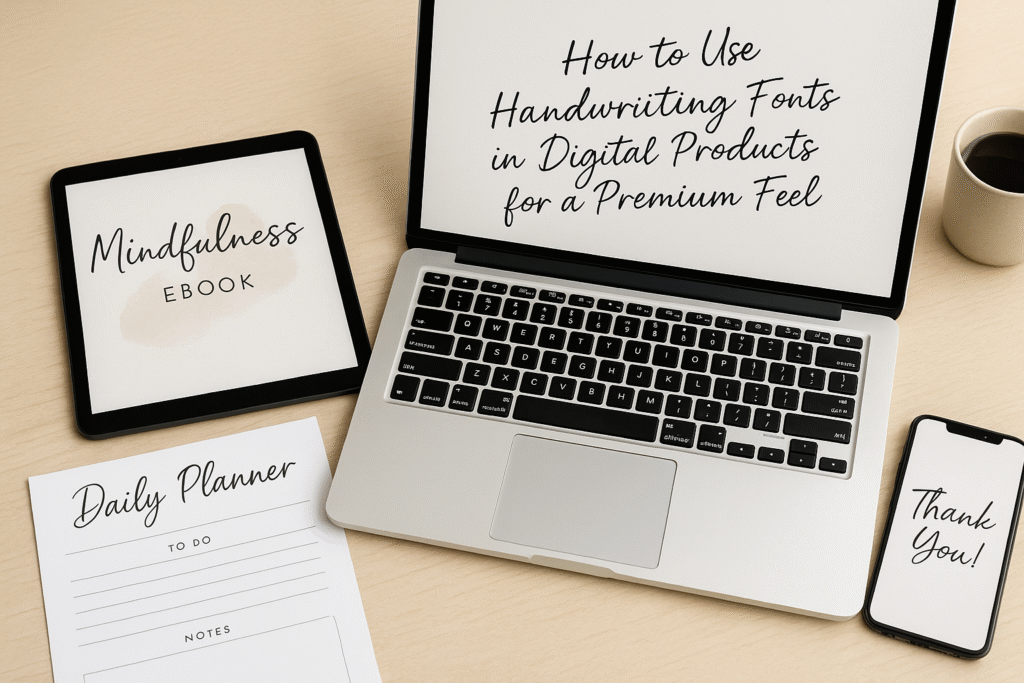
We usually think of handwriting fonts as cute, personal, or artsy. But what if I told you they could also scream luxury?
In the world of digital products—eBooks, planners, mobile apps, courses, digital downloads—design makes or breaks your customer’s first impression. The right font choice can make your product feel thoughtful, elevated, and yes, totally worth the price tag.
Today, we’re digging into the stylish side of handwriting fonts—how to use them to upgrade your digital goods and make customers feel like they’re buying something truly special.
✨ What Makes a Digital Product Feel “Premium”?
Let’s face it. The market is crowded.
From Canva templates to journaling PDFs to coaching programs—there are literally thousands of digital products out there. So what makes one stand out?
Three things:
-
Design polish
-
Clear branding
-
Emotional connection
Guess what helps with all three? You got it—handwriting fonts.
They add a human, custom-crafted feel to digital goods that otherwise risk looking generic. And when done right, they turn a download into an experience.
🖋️ Why Handwriting Fonts Work So Well
Let’s break it down:
-
They feel handcrafted – Which makes your audience feel like you created it just for them.
-
They break the digital monotony – Most digital products use safe, boring fonts. Handwriting fonts instantly stand out.
-
They add hierarchy & warmth – Great for section titles, key quotes, or CTA buttons.
-
They align with lifestyle branding – Especially in niches like self-care, productivity, wellness, art, parenting, or education.
Basically, they’re a shortcut to making your product look more valuable.
🛠️ Where to Use Handwriting Fonts in Your Digital Product
Now, let’s get practical. Here are key areas where a handwriting font can really shine:
🗂️ 1. Covers & Title Pages
The first page of your eBook, guide, or template is prime real estate. A tasteful handwriting font as the main headline or subtitle instantly elevates the feel.
Example:
“Mindful Morning Routine Planner” in a soft, flowing script font paired with a clean sans-serif subtitle.
📝 2. Section Headers
Break up long chunks of text by using handwriting fonts for headers. This guides the reader’s eye and makes the layout feel more dynamic.
Example:
Each chapter in a digital workbook starts with “Chapter One” in script, followed by a clean serif heading.
🧠 3. Quotes, Tips, and Prompts
Add personality to sidebars or pull quotes using a handwriting font. This makes your content feel more like a conversation than a lecture.
Example:
“Take 5 minutes to reflect on this moment.” in a handwritten note-style font.
📅 4. Worksheets and Interactive Templates
Want your printable planner or tracker to look approachable? Use handwriting fonts for section labels, notes, and callouts.
Example:
Checklist items with checkboxes and a soft handwritten style: “Drink water,” “Do 10 min yoga,” etc.
📱 5. App or Web-Based Products
Yes—even apps can rock handwriting fonts, if used sparingly. Try it on splash screens, onboarding messages, or confirmation pop-ups.
Example:
“Welcome back, Sarah 💛” in a modern cursive font feels personal and friendly.
🧃 Font Pairing Tips for Digital Products
Balance is everything. Handwriting fonts should complement—not overpower—your content. Here’s how:
-
Pair with a clean base font – Choose a sans-serif or classic serif as your primary body font.
-
Use handwriting fonts for emphasis – Keep them in titles, not body paragraphs.
-
Stick to 2–3 fonts total – Your design will feel cleaner and more cohesive.
-
Test on screen and print – Make sure your script font reads well on different devices.
Some winning combos:
-
Sophia Script + Open Sans
-
Hello Paris + Lora
-
Lemonade Script + Raleway
-
Adelina Script + Playfair Display
🧠 Psychology: Why It Feels More Expensive
Here’s the kicker: people perceive beauty as value.
That’s called the aesthetic-usability effect. If a product looks more appealing, people assume it works better—even if the functionality is the same.
So, if your downloadable PDF planner feels like it came from a boutique lifestyle brand rather than a rushed Word doc… cha-ching.
Your customer will be more likely to:
-
Buy it
-
Use it
-
Recommend it
And that’s how you grow with style.
✅ Best Practices Recap
To sum it up, here’s your quick checklist for using handwriting fonts in digital products:
✅ Use handwriting fonts on covers, headers, quotes, and accents
✅ Pair with clean, readable fonts
✅ Stick to a consistent style
✅ Match the font’s vibe with your brand voice
✅ Test everything before launch
Don’t settle for clunky freebies. The difference between “meh” and magic is often in the font quality.
We’ve curated fonts that balance personality with polish—perfect for creators, educators, coaches, and online entrepreneurs.
🎁 Final Thought: Make It Feel Custom, Even When It’s Not
Here’s the secret: even if 100 people download your digital product, it should feel like it was made for one.
That’s the magic of a good handwriting font. It gives your customer a whisper of personalization, a touch of warmth, and the sense that someone on the other side cares.
And in today’s digital world?
That’s what makes people stick around.